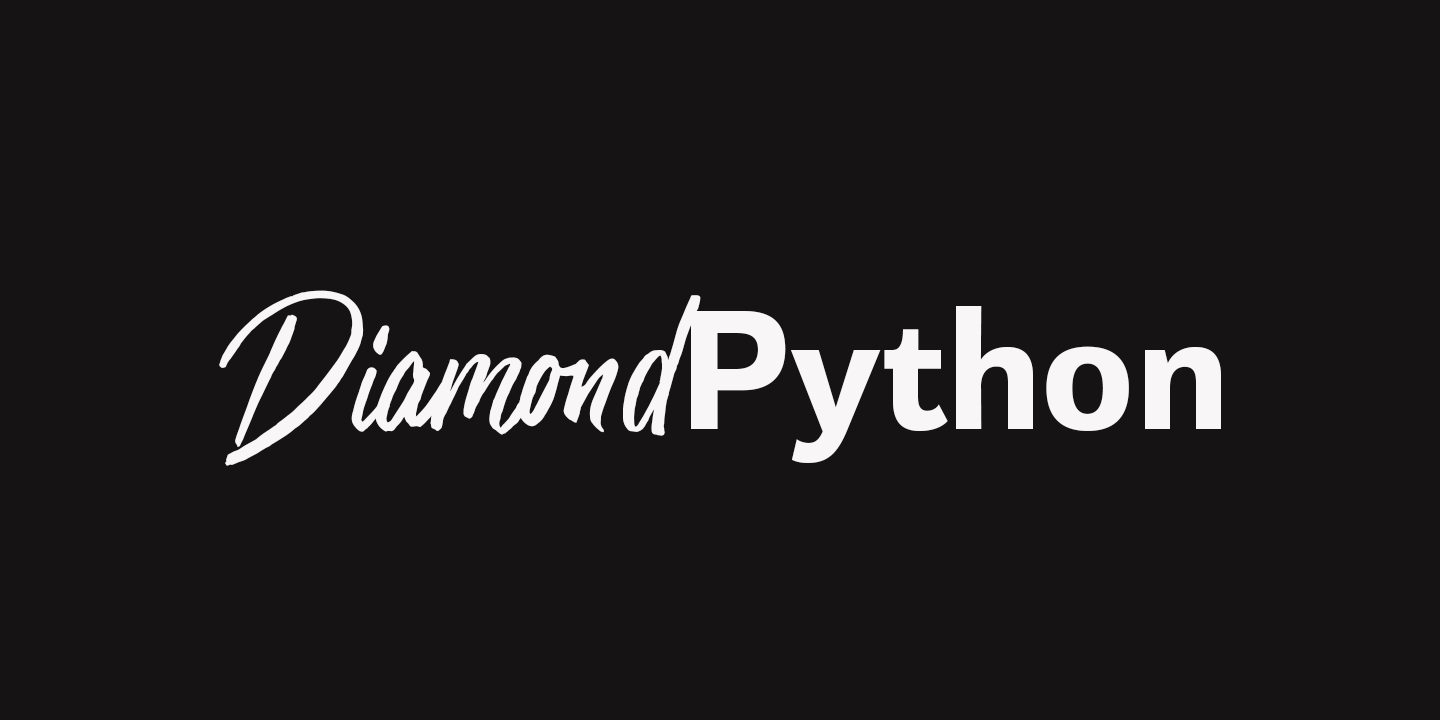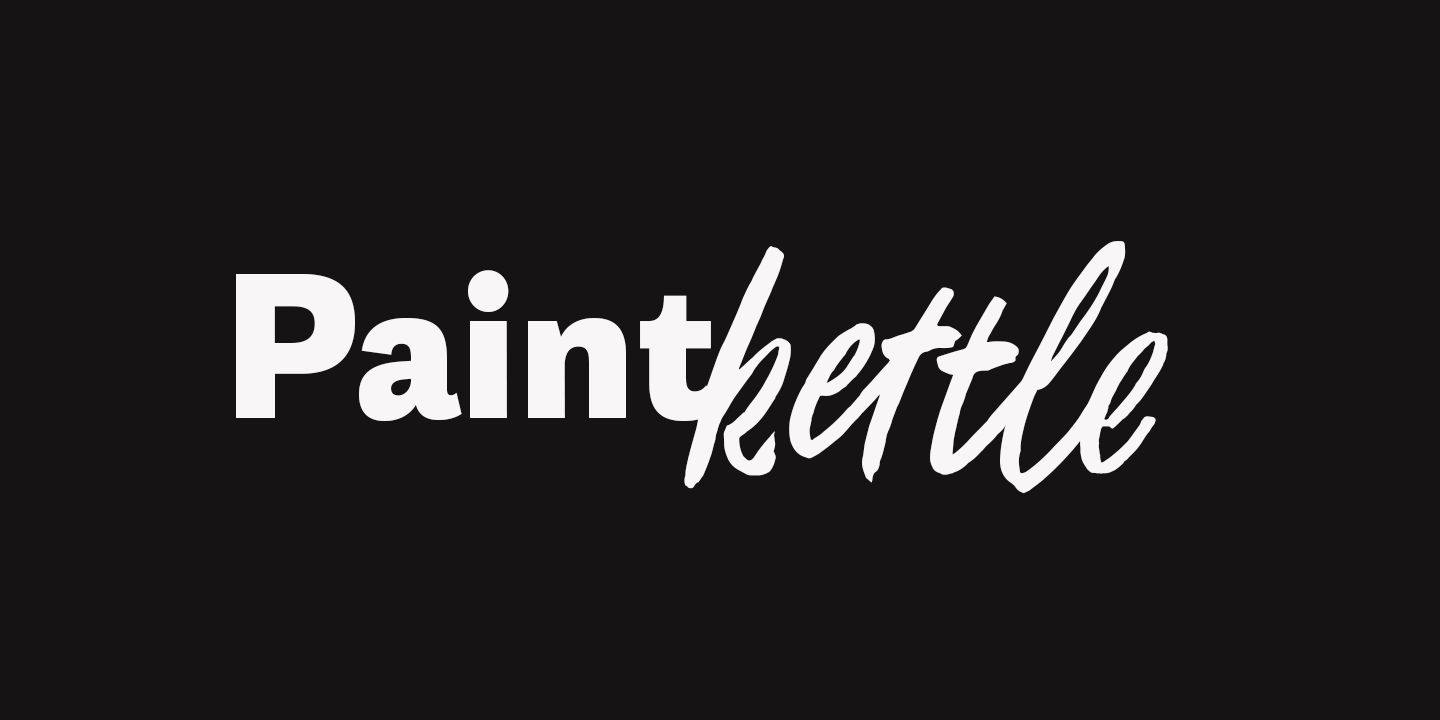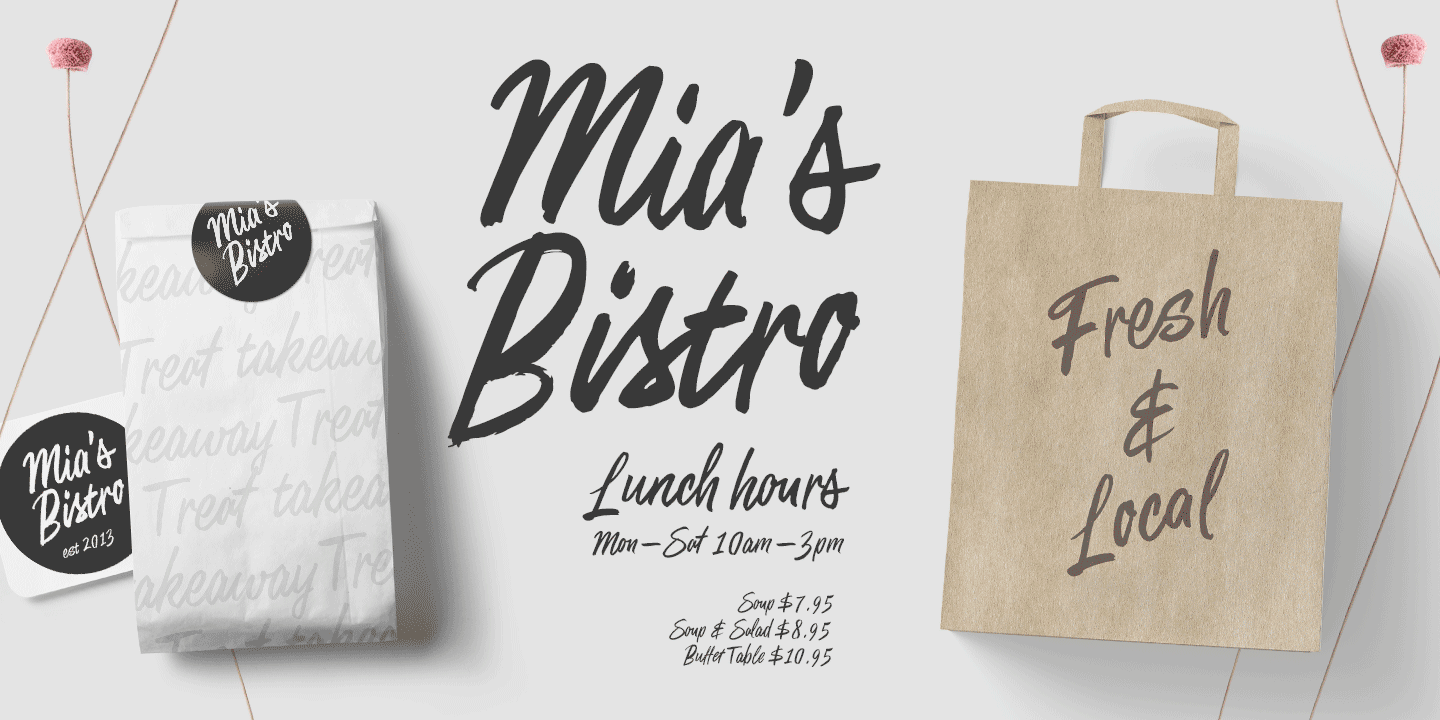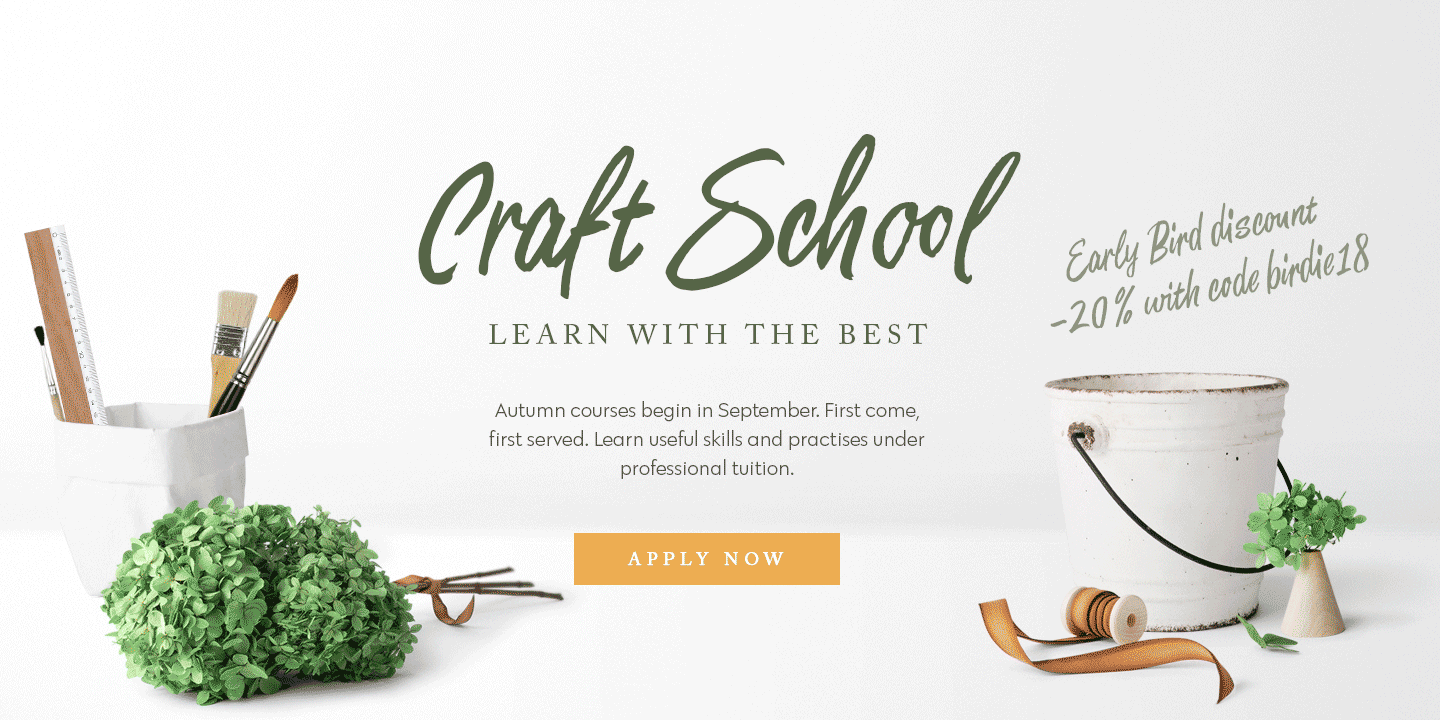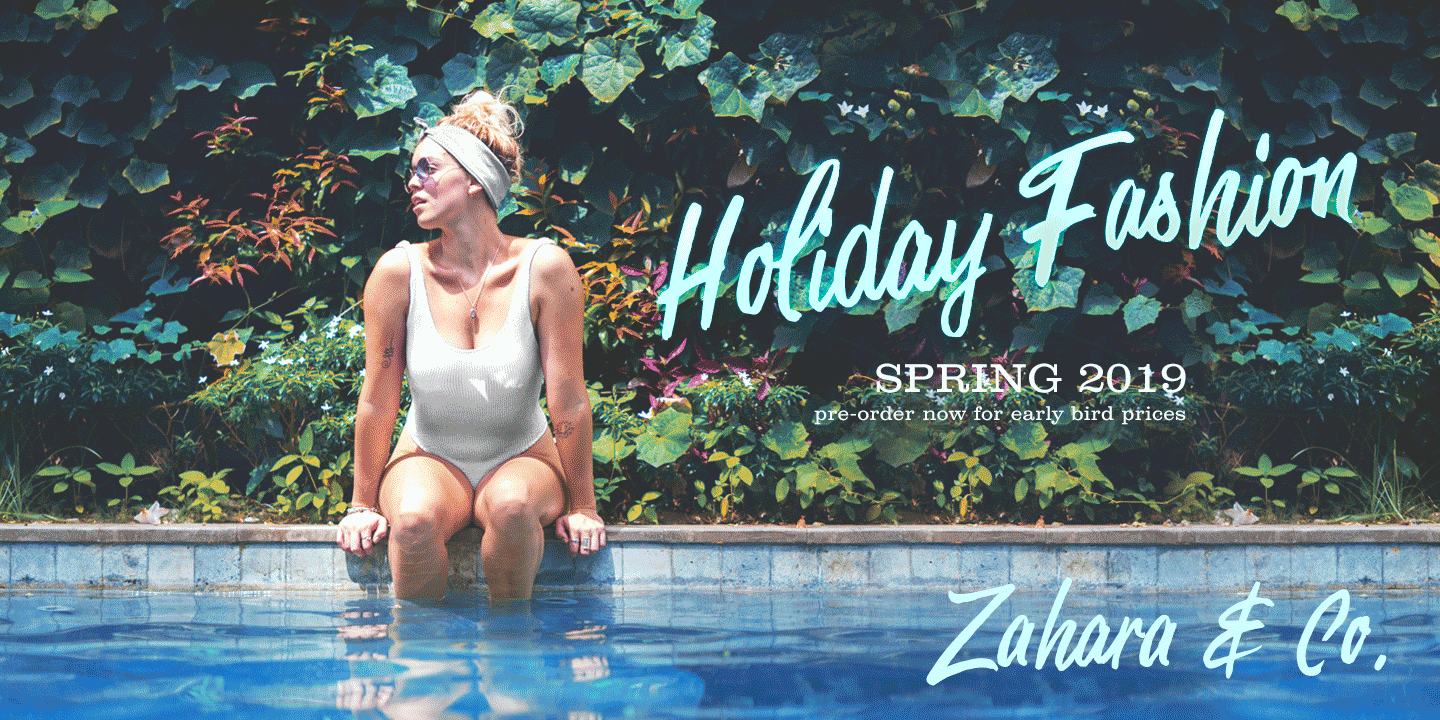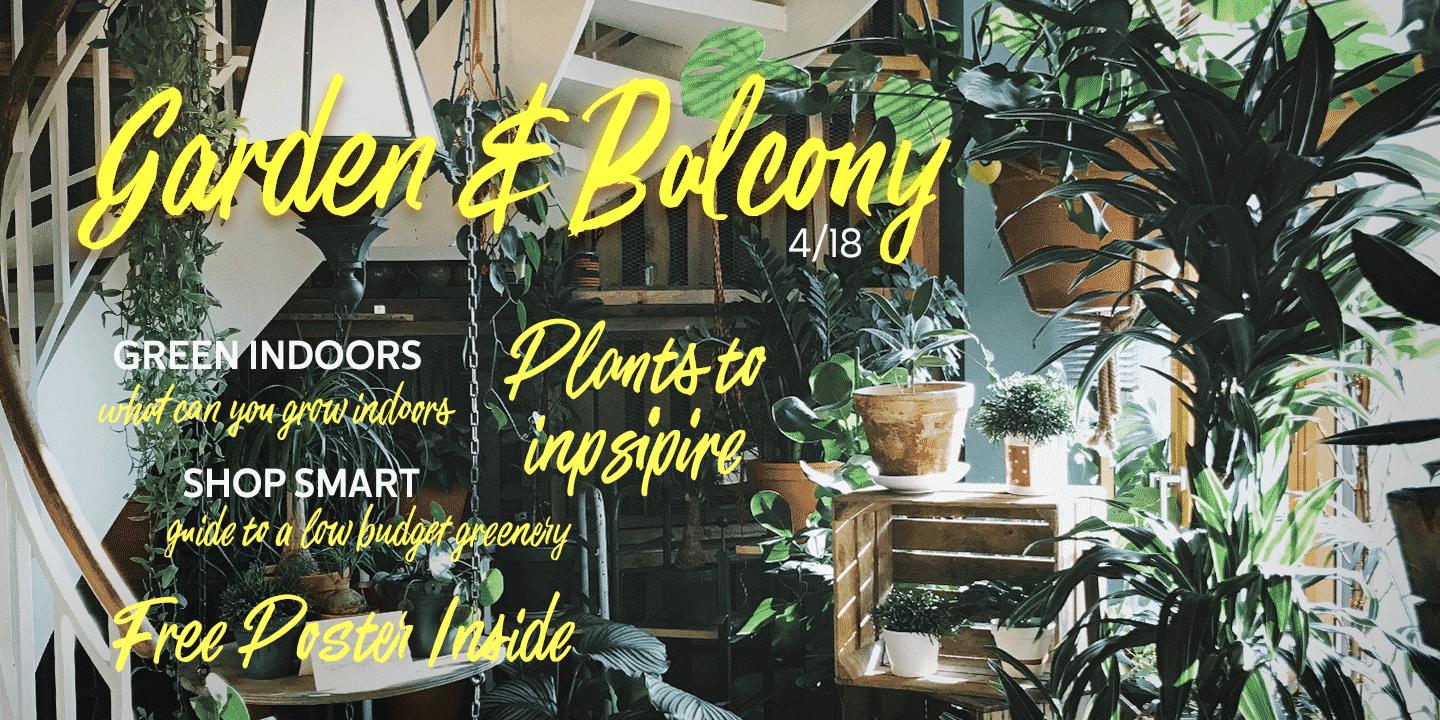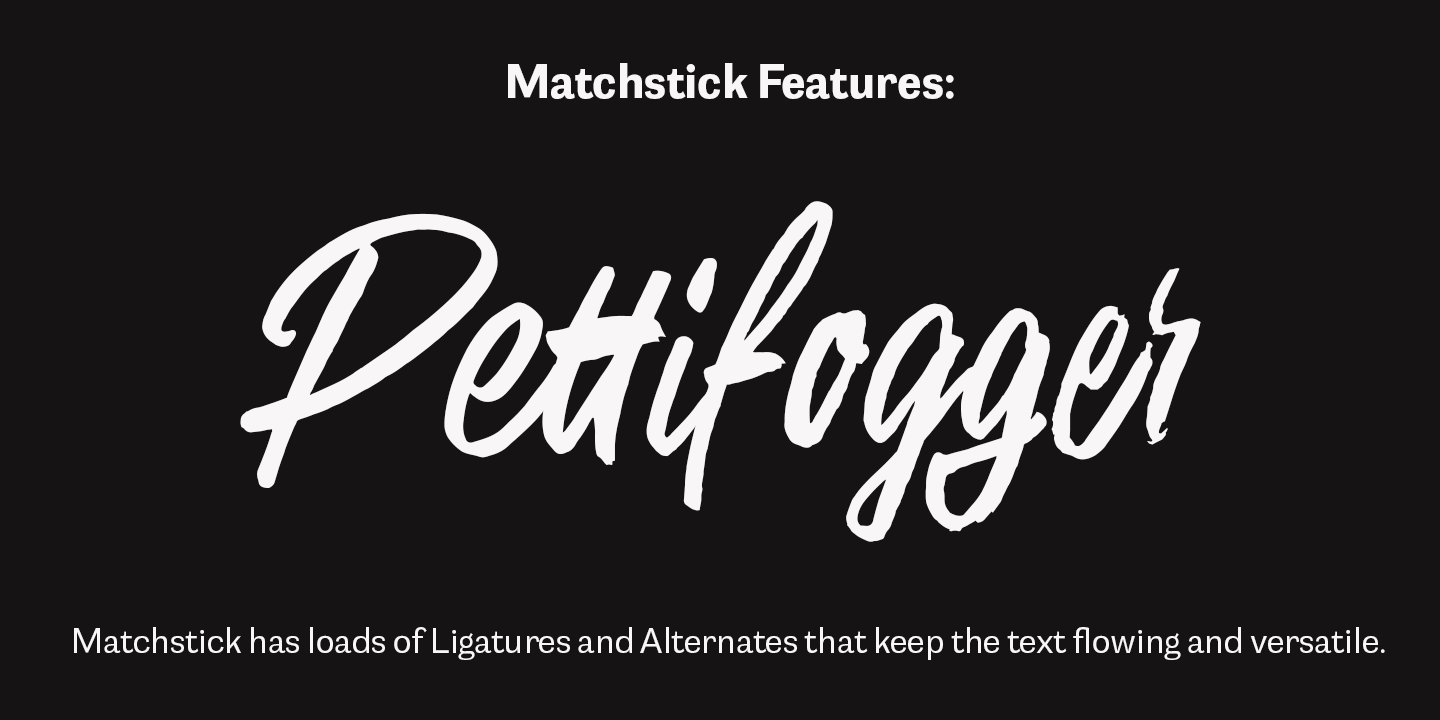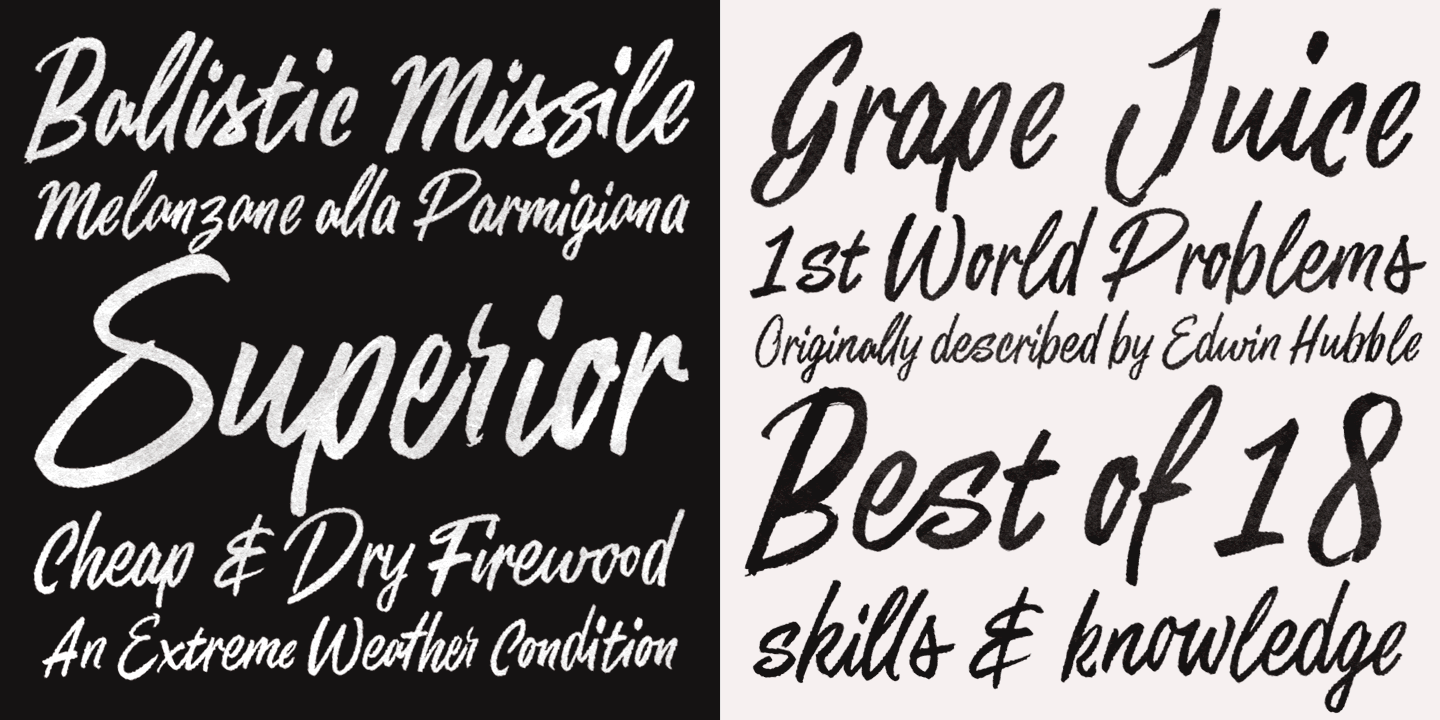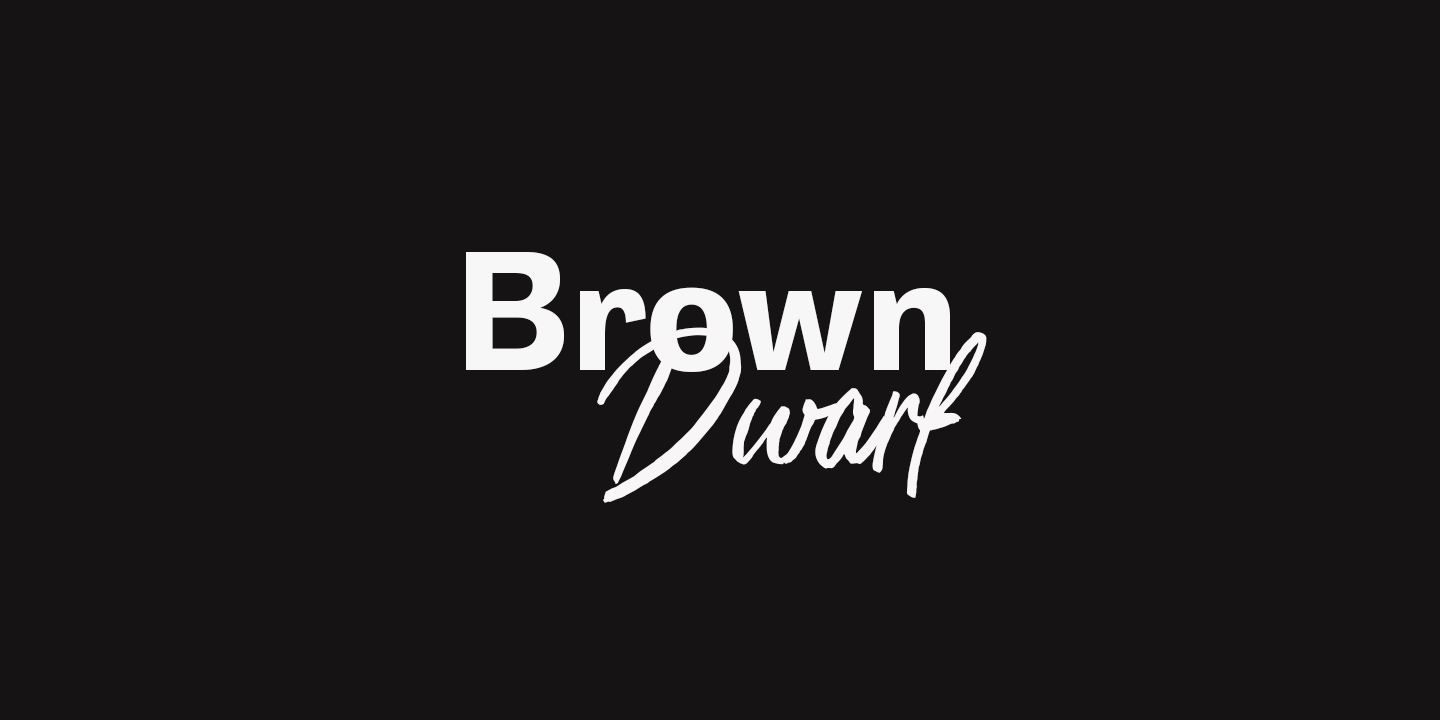
Matchstick is a hand drawn brush script. Matchstick is packed with loads of ligatures and alternates that help simulate a swift look of a handwriting. This feature is set in Standard Ligatures and it is normally automatically on. Matchstick is a great…